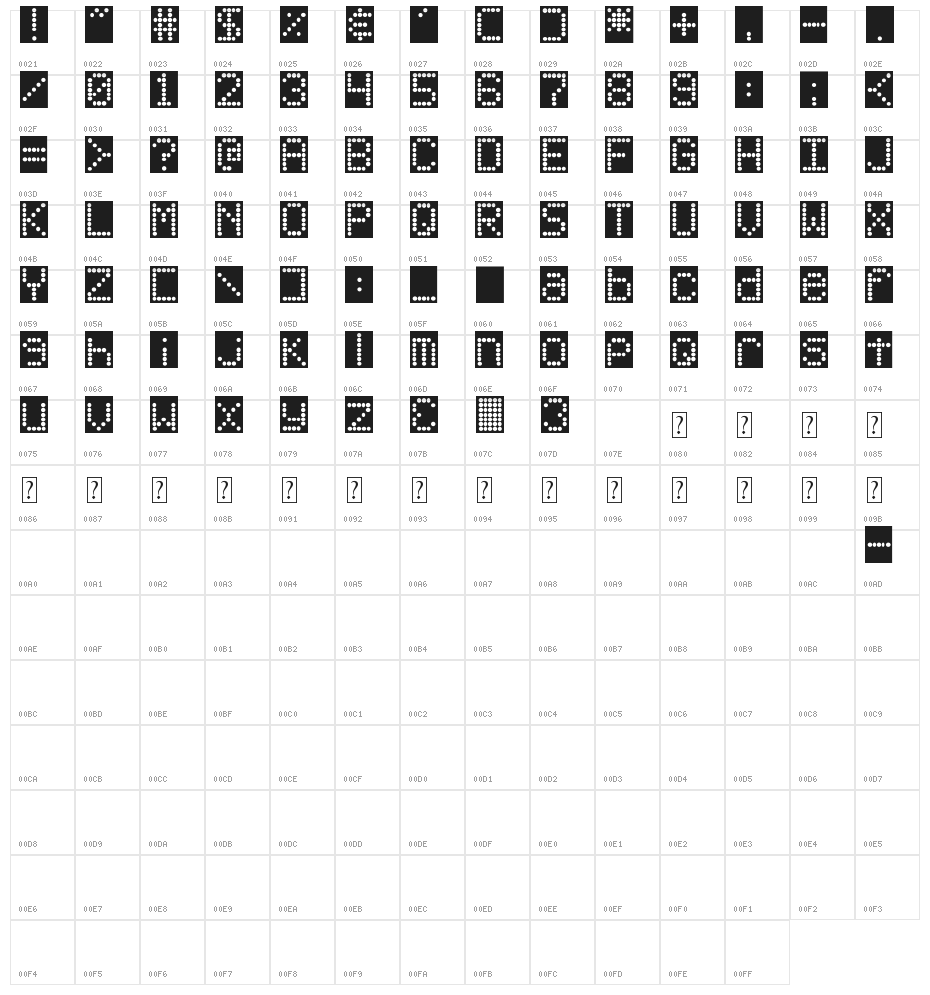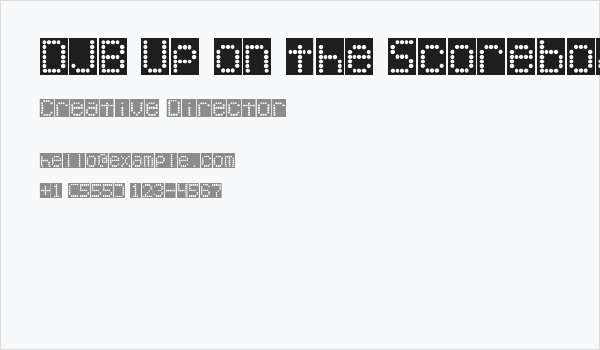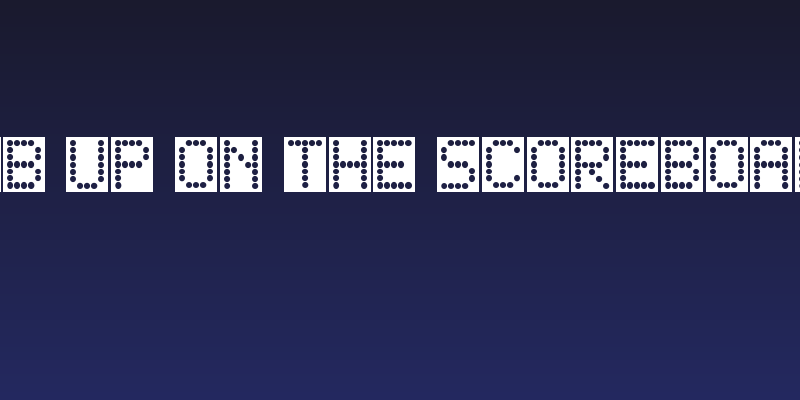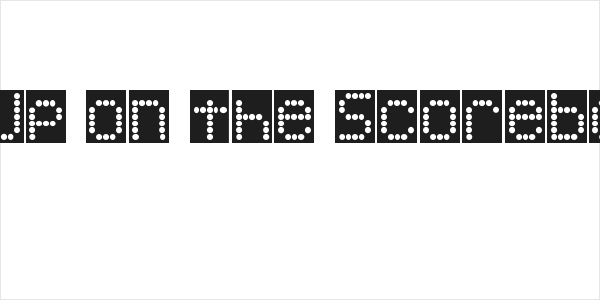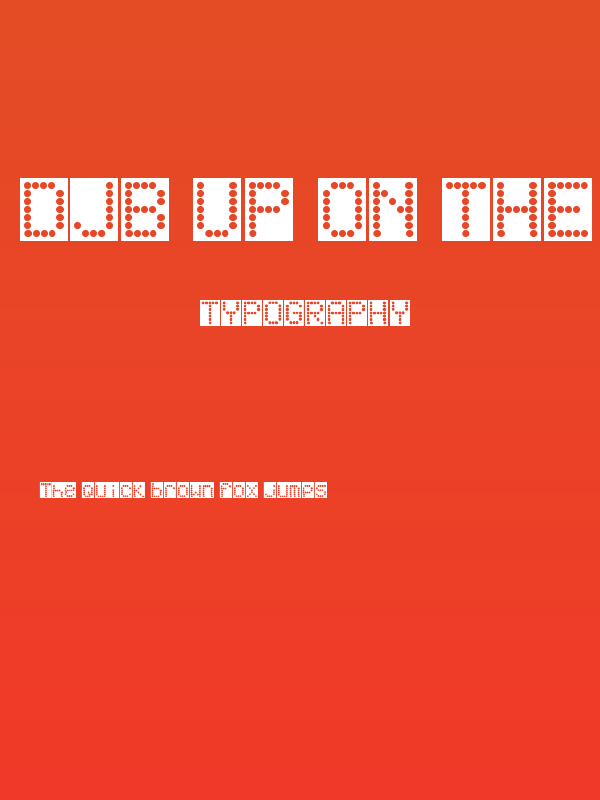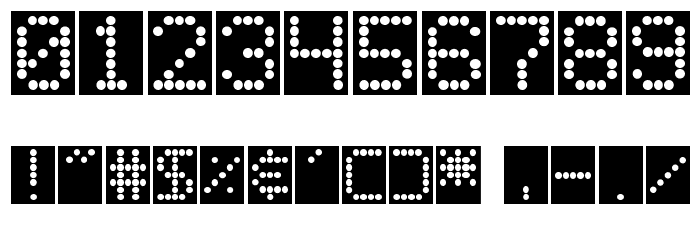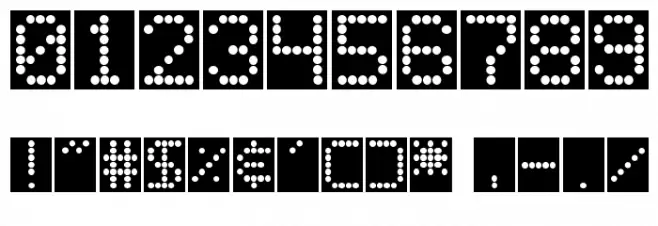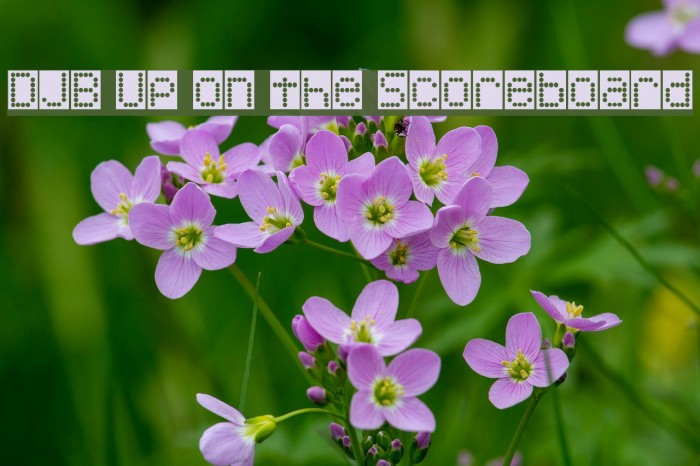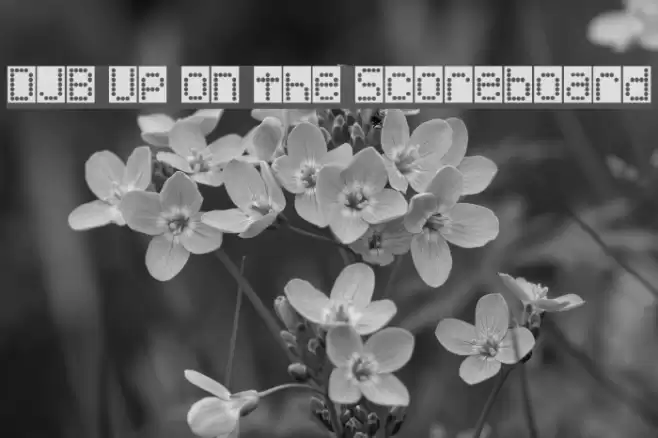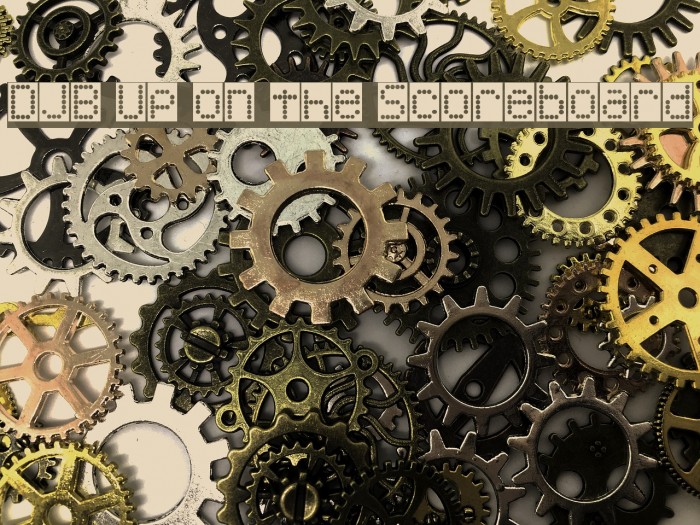
DJB Up on the Scoreboard Font
| Projets proposés | Ideal for retro-themed designs, digital displays, sports scoreboards, and tech-inspired graphics. |